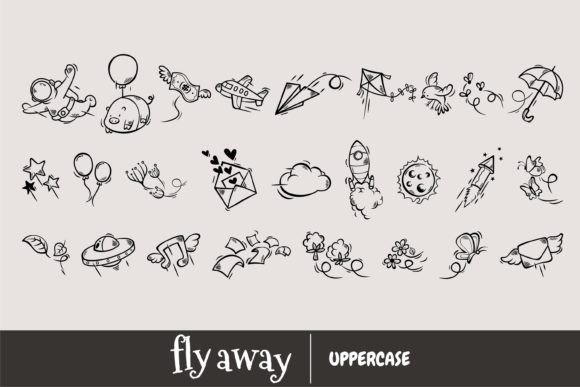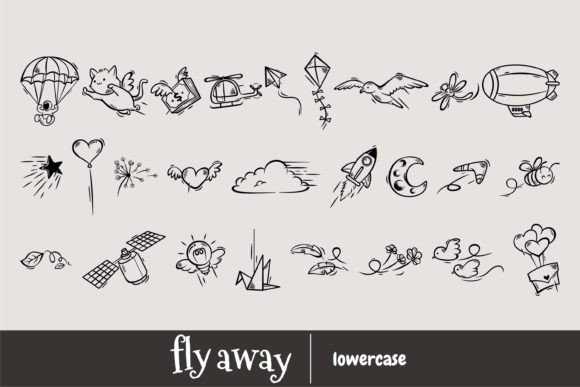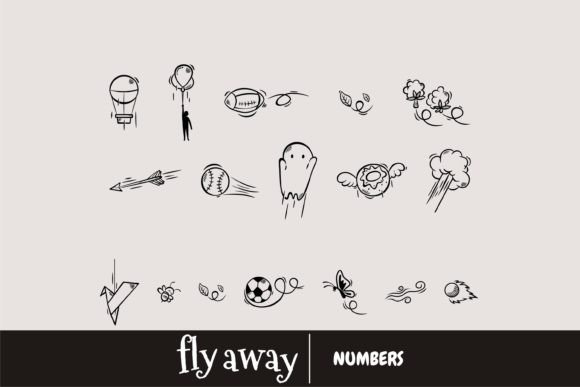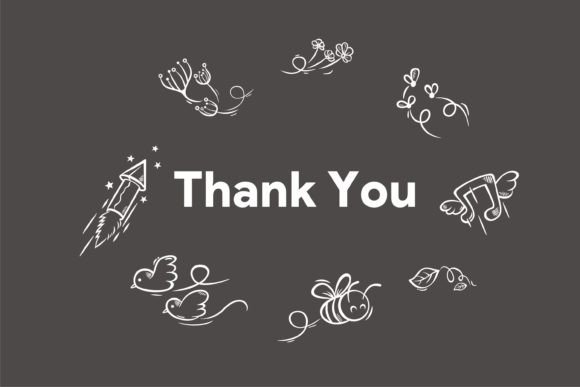
Discover the Magic of Fly Away Font: Elevate Your Designs with this Cool Dingbats Font
Are you tired of using the same old fonts in your designs? Look no further! Introducing Fly Away Font, a cool and useful dingbats font that is sure to take your creations to new heights. Whether you’re a designer, crafter, or simply someone who loves to dabble in creative projects, this font is an incredible asset to have in your library.
What is Fly Away Font?
Fly Away Font is a unique dingbats font that features a collection of flying objects, including birds, planes, balloons, and more. The font is designed to add a touch of whimsy and playfulness to your designs, making it perfect for projects that require a bit of personality. With its extensive range of characters, you can use Fly Away Font to create everything from fun and quirky titles to intricate illustrations.
Why You’ll Love Fly Away Font
So, what makes Fly Away Font so special? Here are just a few reasons why you’ll love adding this font to your library:
- Versatility: No matter the topic or theme of your project, Fly Away Font is sure to fit right in. From children’s books to travel brochures, this font is incredibly versatile and can be used in a wide range of applications.
- Unique and Eye-Catching: Let’s face it – traditional fonts can get boring. Fly Away Font adds a touch of excitement and energy to your designs, making them stand out from the crowd.
- Scalable: Whether you’re working on a small project or a large-scale design, Fly Away Font scales beautifully, ensuring that your text looks great in any size.
How to Use Fly Away Font in Your Designs
Now that you’re excited about Fly Away Font, let’s talk about how to use it in your designs. Here are a few ideas to get you started:
- Title Pages: Use Fly Away Font to create eye-catching title pages for books, magazines, or even presentations.
- Illustrations: Add Fly Away Font to your illustrations to create fun and interactive scenes.
- Signs and Posters: Use Fly Away Font to create attention-grabbing signs and posters that are sure to stand out.
- Web Design: Add a touch of whimsy to your website with Fly Away Font, perfect for headings, titles, or even social media graphics.
Tips and Tricks for Getting the Most out of Fly Away Font
To help you get the most out of Fly Away Font, here are a few tips and tricks:
- Experiment with Color: Fly Away Font looks great in a variety of colors, so don’t be afraid to experiment and find the perfect hue for your design.
- Mix and Match: Combine Fly Away Font with other fonts to create unique and interesting typography.
- Pay Attention to Size: While Fly Away Font scales beautifully, make sure to adjust the size to fit your design.